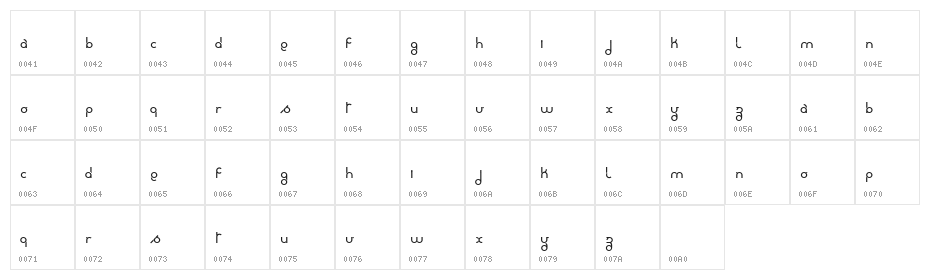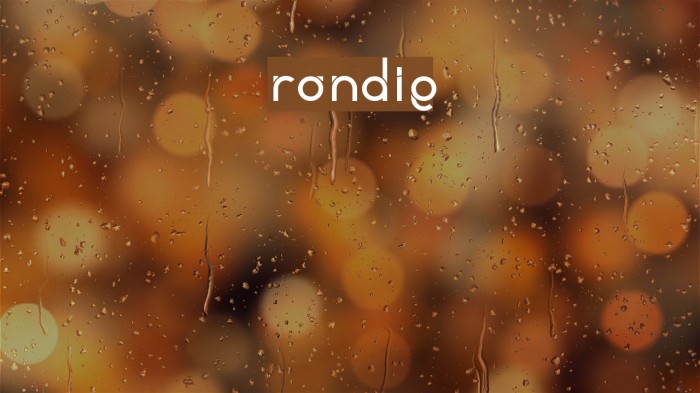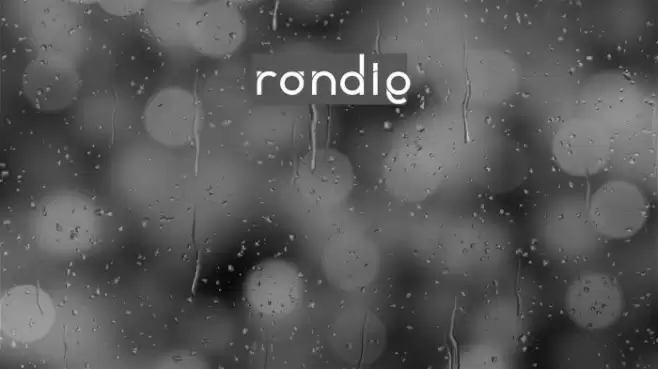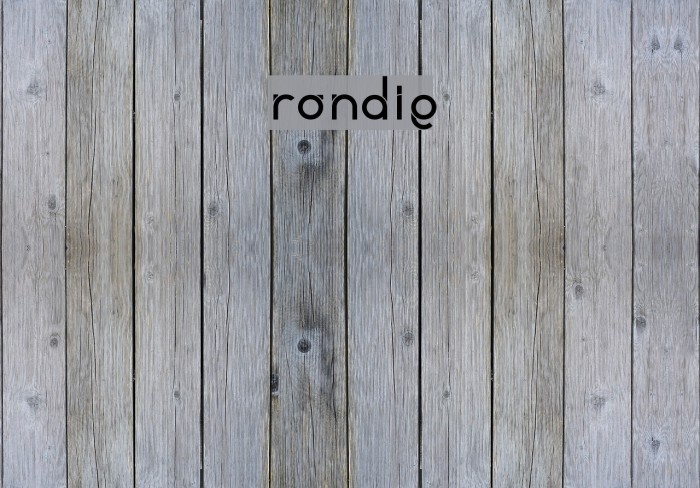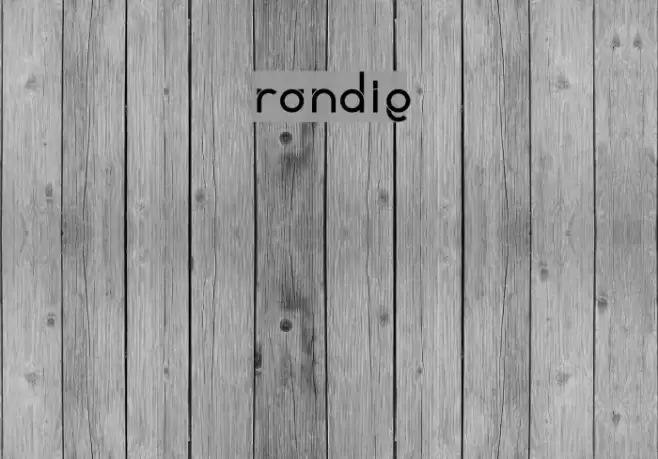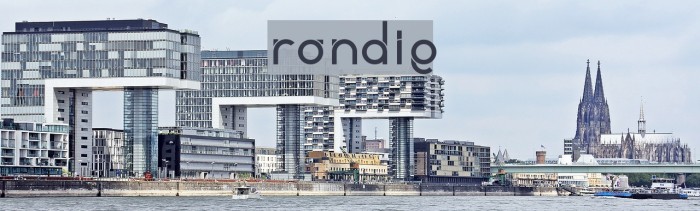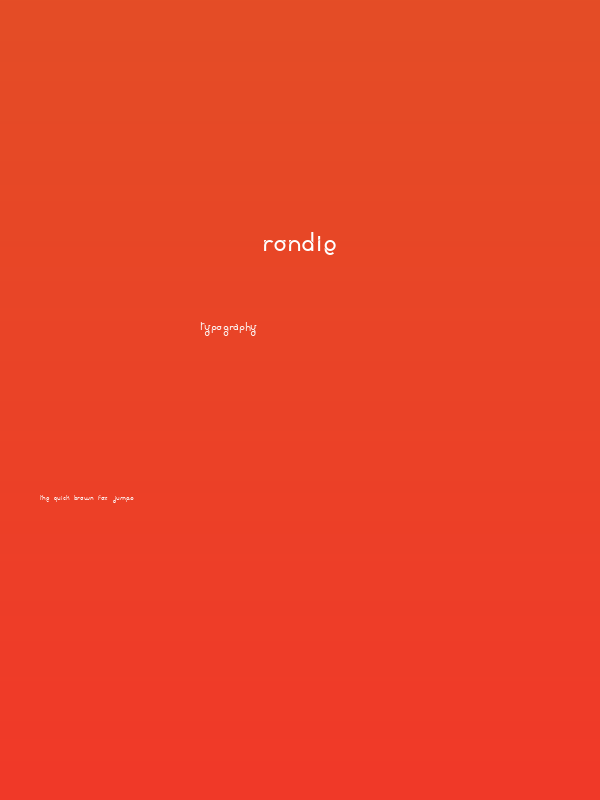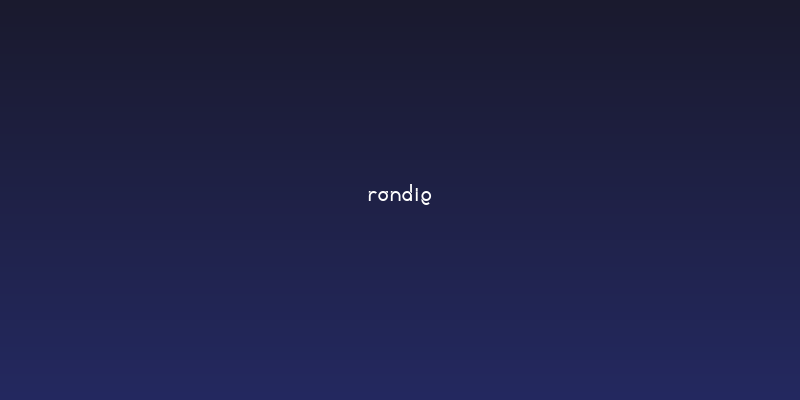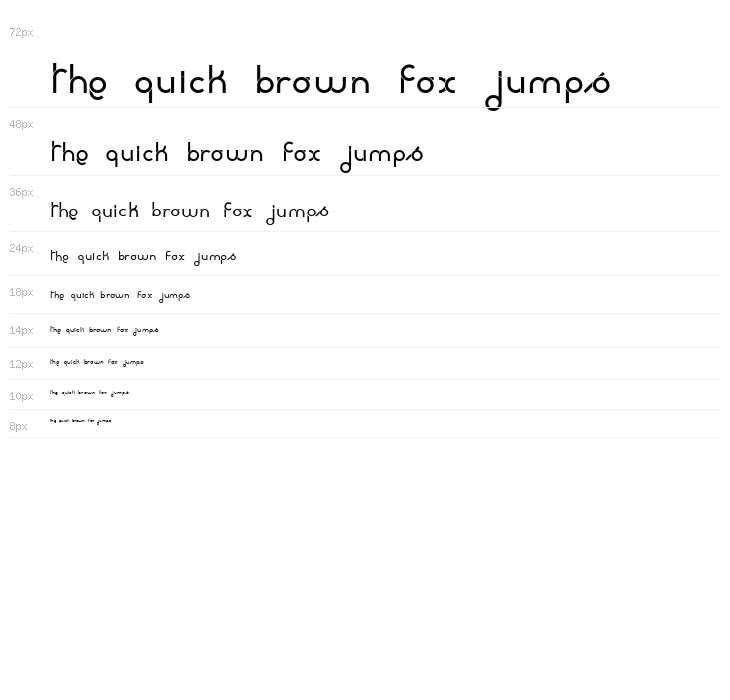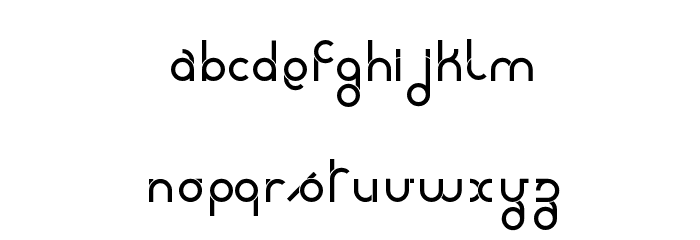
rondie Font
This font features a unique and playful design with rounded edges and a modern aesthetic. The characters are crafted with a sense of whimsy, incorporating circular elements and smooth curves that give it a friendly and approachable feel. The lowercase letters exhibit a consistent height, while the uppercase letters maintain a balanced proportion, enhancing readability. The font's distinct style makes it suitable for creative projects that require a touch of personality and flair. Its clean lines and geometric shapes contribute to a contemporary look, making it versatile for various design applications.